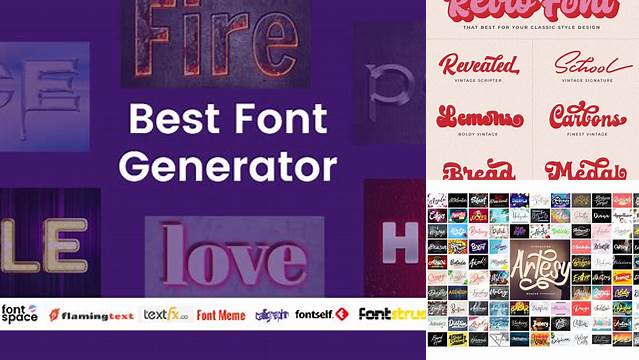
Best Font Packs: Top Typography Collections For Designers
Hey guys! Are you ready to elevate your design game? If you're anything like me, you know that the right font can make or break a project. Whether you're crafting a sleek logo, designing an engaging website, or putting together a captivating marketing campaign, typography is key. That's why I'm super excited to dive into the world of the best font packs out there. Think of this as your ultimate guide to unlocking a treasure trove of creative possibilities. We're going to explore a variety of font styles, discuss what makes a font pack truly exceptional, and even give you some tips on how to effectively use these fonts in your projects. So, buckle up, design enthusiasts, and let's get started on this font-tastic journey! We'll uncover everything from timeless classics to modern marvels, ensuring you have the perfect typeface for every occasion. Remember, a well-chosen font isn't just about aesthetics; it's about conveying the right message, establishing your brand identity, and creating a lasting impression. Trust me, investing in a quality font pack is an investment in your creative future. So, let's explore the best font packs that can transform your designs from ordinary to extraordinary. Let’s dive deep into the specifics of what makes these font packs stand out, the types of projects they're best suited for, and how you can get your hands on them. We'll also touch upon the importance of licensing and usage rights, because nobody wants a font faux pas! Ready to become a typography pro? Let’s go!
What Makes a Font Pack the "Best"?
Okay, so what exactly makes a font pack the best? It's not just about the sheer number of fonts included, guys. A truly exceptional font pack is a carefully curated collection that offers versatility, quality, and usability. Think of it as a well-stocked toolbox for your design brain! One of the key factors is variety. The best font packs don't just offer a single style; they include a range of typefaces, from elegant serifs to clean sans-serifs, playful scripts to bold display fonts. This allows you to tackle a multitude of projects without having to hunt down individual fonts. Imagine having a go-to pack that covers everything from body text in a report to the headline on a website. That’s the power of a diverse font collection. But variety alone isn't enough. The quality of the fonts is paramount. A poorly designed font, no matter how stylish it looks at first glance, can be a nightmare to work with. Kerning issues, inconsistent line weights, and a lack of character support can all lead to headaches and a less-than-professional final product. The best font packs feature fonts that have been meticulously crafted by experienced type designers. These fonts are not only visually appealing but also technically sound, ensuring a smooth and enjoyable design process. Another crucial aspect is usability. A font pack might contain dozens of stunning typefaces, but if they're difficult to install, manage, or use, they're not going to be very helpful. The best packs come with clear instructions, organized files, and sometimes even helpful extras like style guides or usage examples. Let's not forget about licensing. It's super important to understand the terms of use for any font you acquire. The best font packs come with clear and straightforward licensing agreements, so you know exactly what you can and can't do with the fonts. This can save you a lot of trouble down the road. So, to recap, the best font packs offer a winning combination of variety, quality, usability, and clear licensing. They're the kind of collections that become invaluable assets in your design toolkit, helping you bring your creative visions to life with style and confidence. Now, let's dive into some specific examples and see what these amazing font packs have to offer!
Top Font Packs to Consider
Alright, guys, let's get down to the nitty-gritty and explore some of the top font packs that are currently making waves in the design world. There are so many amazing options out there, but I've handpicked a few that I think offer something special, whether it's their incredible variety, their unique style, or their exceptional value for money. First up, we have the "Creative Fabrica Ultimate Fonts Bundle." This is a real powerhouse of a collection, boasting thousands of fonts across a wide range of styles. From elegant scripts perfect for wedding invitations to bold sans-serifs ideal for branding, this bundle truly has it all. What's particularly great about this pack is its sheer scale. It's like having a whole library of fonts at your fingertips! Plus, Creative Fabrica often includes commercial licenses with their bundles, making them a fantastic choice for designers who work on client projects. Next, let's talk about the "Envato Elements Font Collection." If you're looking for a subscription-based option that gives you access to a vast and ever-growing library of fonts, Envato Elements is definitely worth checking out. Their font collection is incredibly diverse, spanning everything from classic typefaces to trendy display fonts. The subscription model is a great way to try out lots of different fonts without having to commit to purchasing individual licenses. Plus, Envato Elements also includes other design assets like graphics, templates, and stock photos, making it a one-stop shop for creative resources. For those of you who appreciate the artistry of independent type foundries, the "MyFonts Bundles" are definitely worth a look. MyFonts is a renowned marketplace for high-quality fonts, and they often curate themed bundles that showcase the work of talented type designers. These bundles can be a fantastic way to discover new and unique typefaces that you won't find anywhere else. They often come with detailed specimen sheets and usage guidelines, making them a joy to work with. Let's not forget about the "HypeForType Font Collections." HypeForType is another excellent source for premium fonts, and they offer a variety of curated collections that cater to different design needs. Whether you're looking for a bundle of vintage-inspired fonts or a collection of modern geometric typefaces, HypeForType is sure to have something that catches your eye. These collections are often put together by experienced typographers, ensuring that the fonts are not only beautiful but also highly functional. Each of these font packs offers a unique blend of style, variety, and value. The best choice for you will depend on your specific needs and budget. But one thing's for sure: investing in a quality font pack is an investment in your creative toolkit, one that will pay dividends for years to come. Now, let's delve into how you can actually use these fonts effectively in your design projects.
How to Effectively Use Fonts from a Pack
Okay, guys, you've got your hands on an awesome font pack – congratulations! But now comes the real challenge: how do you actually use these fonts effectively in your design projects? It's not enough to simply have a wide range of typefaces; you need to know how to choose the right font for the job and how to combine fonts in a way that creates a harmonious and visually appealing result. First and foremost, consider the context of your project. What message are you trying to convey? What is the overall tone and style? A playful, handwritten font might be perfect for a children's book, but it would likely be out of place on a corporate website. Similarly, a formal serif font could lend an air of sophistication to a print brochure but might feel a bit stuffy in a social media graphic. Think about your target audience, too. What kind of fonts will resonate with them? A young, tech-savvy audience might appreciate a modern, geometric sans-serif, while a more traditional audience might prefer a classic serif typeface. Hierarchy is another key consideration. Use different font styles and sizes to create a visual hierarchy that guides the viewer's eye and makes your content easy to scan. For example, you might use a bold, attention-grabbing font for headlines, a clear and legible font for body text, and a slightly different font for captions or callouts. The goal is to create a clear visual structure that makes your design both aesthetically pleasing and easy to understand. Contrast is your friend! Don't be afraid to mix different font styles, but make sure they contrast enough to create visual interest. A classic pairing is a serif font for headlines and a sans-serif font for body text. This combination offers a nice balance of formality and readability. You could also experiment with different weights and styles within the same font family. For example, you might use a bold version of a font for headings and a light version for body text. This can create a subtle yet effective contrast. However, avoid using too many fonts. A general rule of thumb is to stick to two or three fonts per project. Too many fonts can create a cluttered and chaotic look, making your design feel overwhelming. Choose your fonts carefully and use them consistently throughout your project. Don't underestimate the power of white space. Give your fonts room to breathe! Avoid cramming text too tightly together, and use generous margins and padding to create a clean and uncluttered layout. White space can actually enhance the readability of your text and make your design feel more polished and professional. Finally, test your fonts in different sizes and contexts. What looks great on your computer screen might not translate well to print or a mobile device. Make sure your fonts are legible and readable in all the environments where they will be used. By following these tips, you can effectively harness the power of your font pack and create designs that are both visually stunning and highly functional. Remember, typography is a key element of design, so take the time to master it!
Conclusion: Unleash Your Design Potential
So, guys, we've reached the end of our deep dive into the world of the best font packs! We've explored what makes a font pack exceptional, looked at some top contenders in the market, discussed how to effectively use fonts in your designs, and even touched upon the importance of font library maintenance and licensing. I hope this guide has equipped you with the knowledge and inspiration you need to unleash your design potential through the power of typography. Remember, a font pack is more than just a collection of letters; it's a gateway to creative expression. It's a tool that can help you communicate your message, establish your brand identity, and create designs that truly stand out. By investing in quality font packs and mastering the art of typography, you're investing in your future as a designer. The right fonts can elevate your work from good to great, making a lasting impression on your audience and setting you apart from the competition. Don't be afraid to experiment with different fonts and styles. Try new pairings, explore unconventional typefaces, and push the boundaries of your creative vision. The world of typography is vast and ever-evolving, so there's always something new to discover. Embrace the journey of learning and growth, and you'll be amazed at the designs you can create. And remember, guys, typography is not just about aesthetics. It's about functionality, readability, and communication. Choose fonts that are not only visually appealing but also easy to read and understand. Consider the context of your project and the message you're trying to convey. Think about your target audience and what kind of fonts will resonate with them. By taking a holistic approach to typography, you can create designs that are both beautiful and effective. So, go forth and create amazing things! Explore the font packs we've discussed, experiment with different typefaces, and let your creativity soar. The world needs your unique vision, and the right fonts can help you bring it to life. Thank you for joining me on this font-tastic adventure, and I can't wait to see what you create!